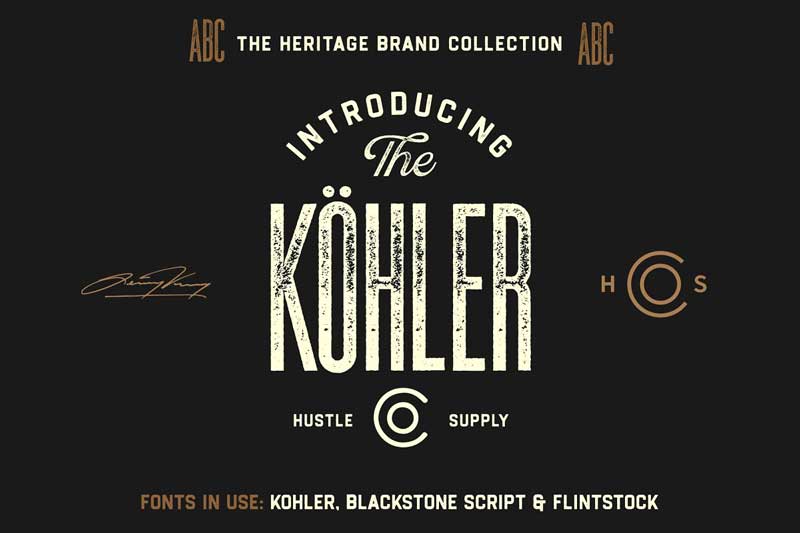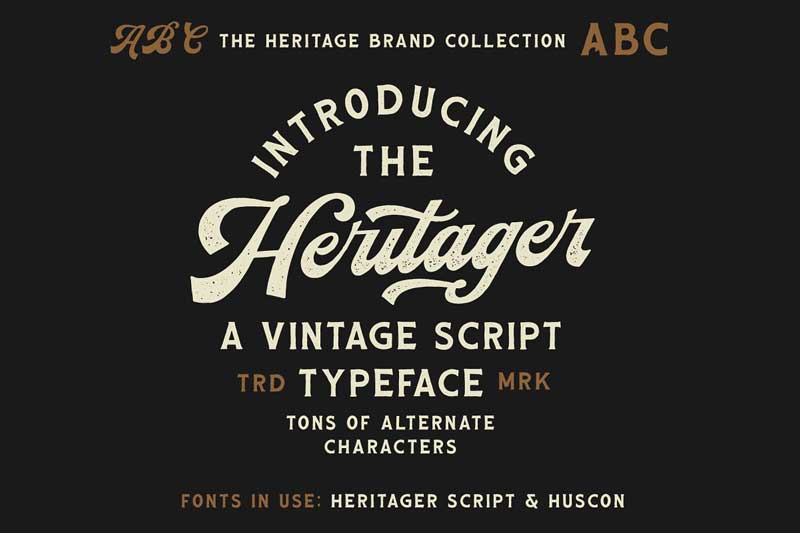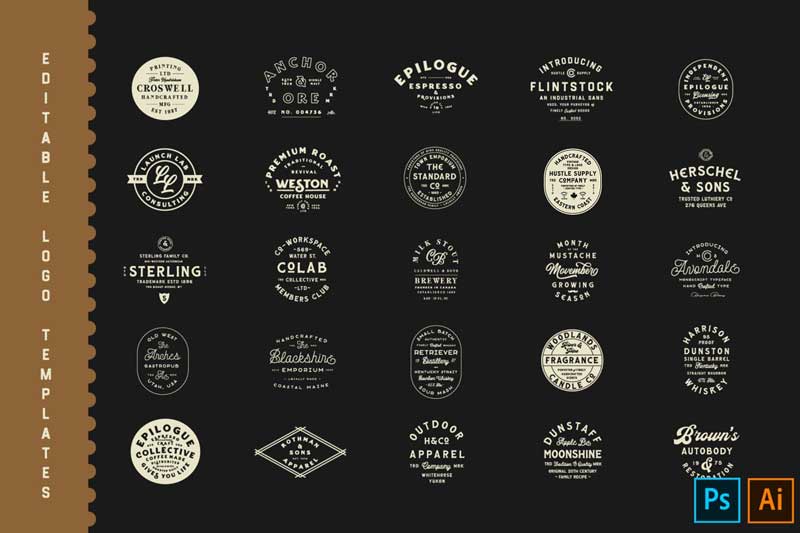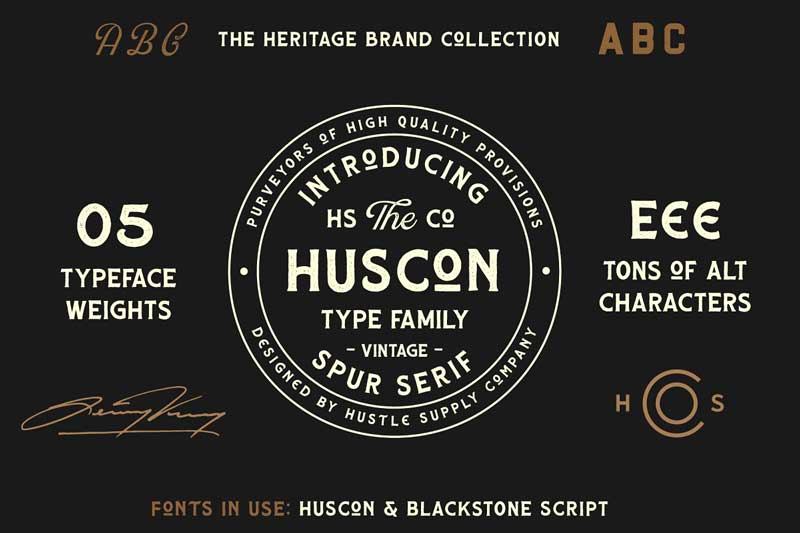
The Heritage Brand Font Collection 4464746
The Heritage Brand Collection
Pairing typefaces can be time-consuming & costly. With the Heritage Brand Collection, you don’t have to worry about time or money. You have everything you need in this incredible collection. Recommended For You Fragile Collection (Font Bundle)
Wow, your clients with this versatile selection of incredible typefaces that allow you to effortlessly create typographic projects with the class.
With 25 Editable Type Templates at your disposal, your project is just minutes away from completion.
Type Templates are incredibly versatile. Creating Logos & Labels is just the beginning. Many of my customers have used my Type Templates to create anything from:
• Flyers & Posters
• Content for Instagram
• Prints & Apparel Design
• Merchandise
• Advertising Creative
• Branding / Logo Design
• Use in Video for Titles
• Packaging
• Book Cover Designs
• Etsy, Society6, Etc
• Even Product Covers On Creative Market!